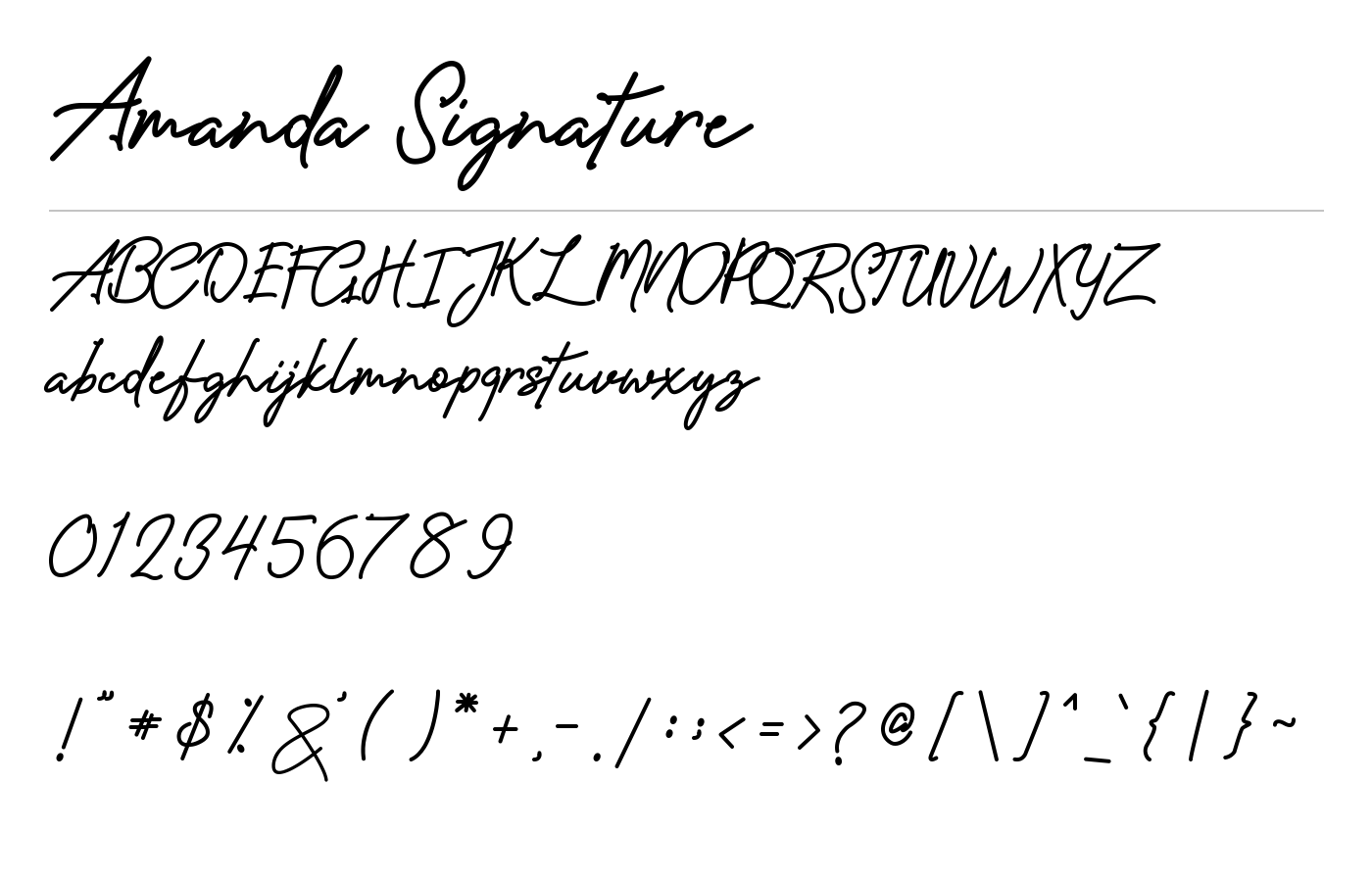
Amanda Signature is a casual, handwritten script font that offers elegant and natural flowing strokes reminiscent of a personal signature. Its smooth, slightly slanted letters with moderate stroke contrast give it a friendly yet refined feel, making it perfect for branding, invitations, and creative projects that seek a personal, stylish touch. This font works especially well in logos and headlines where a warm, approachable, and authentic vibe is desired.
Amanda Signature Font
About Amanda Signature Font
| Font family | Amanda Signature Font |
| Designer | Ikrar Bey Khubaib |